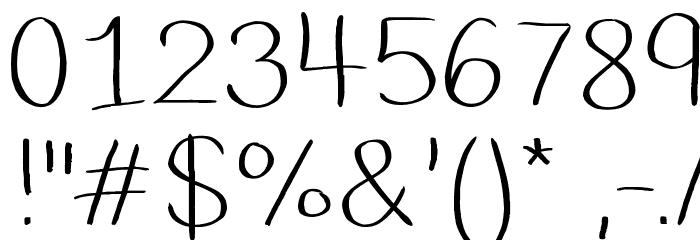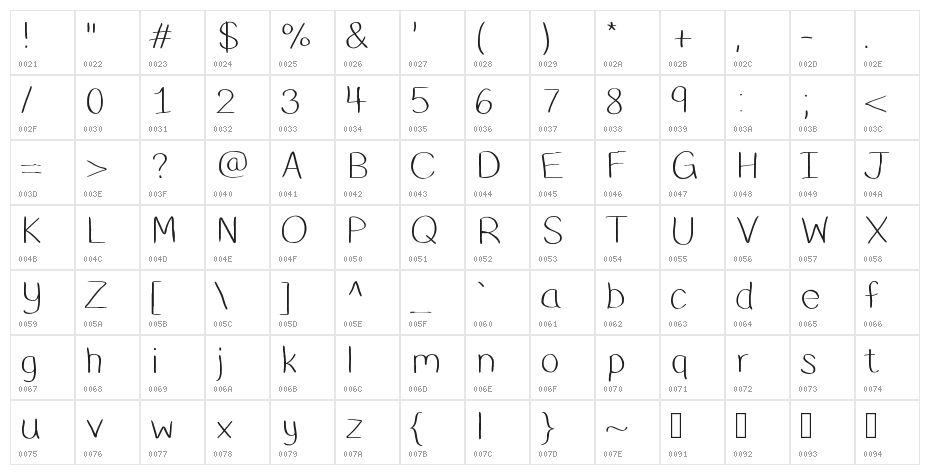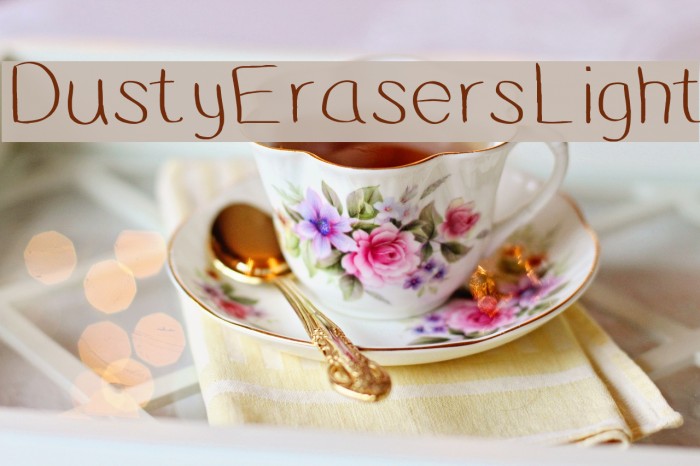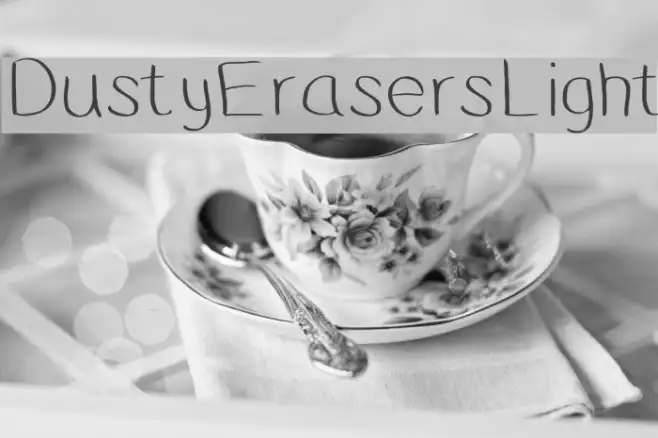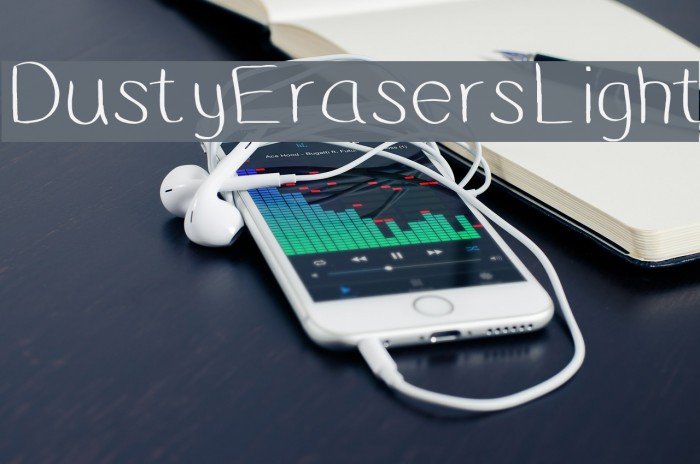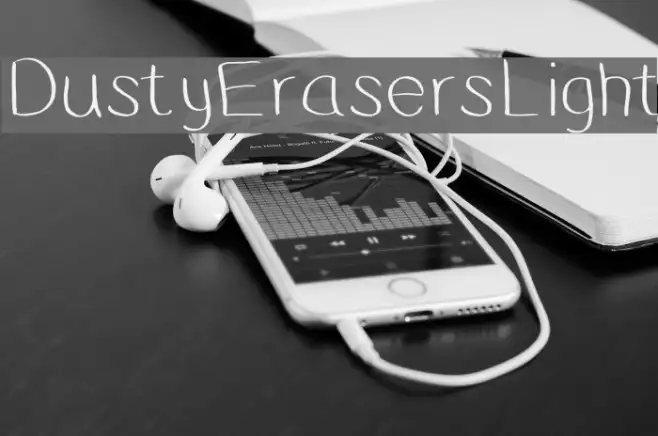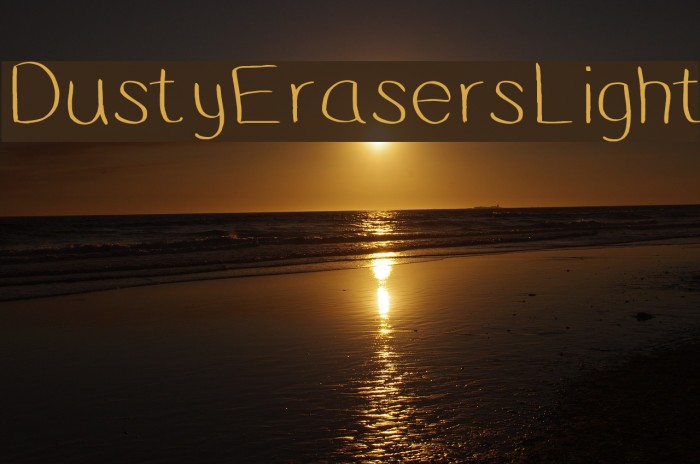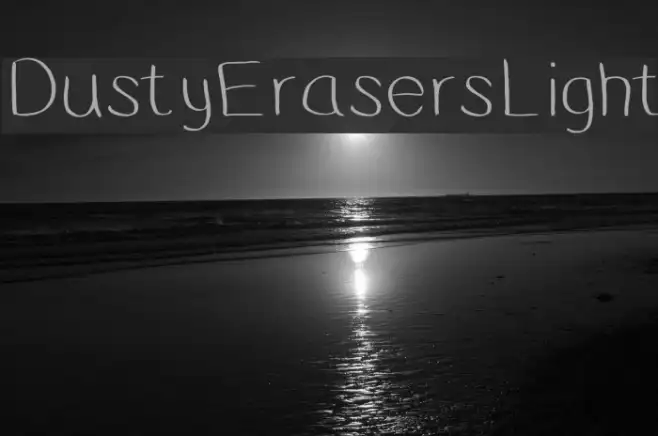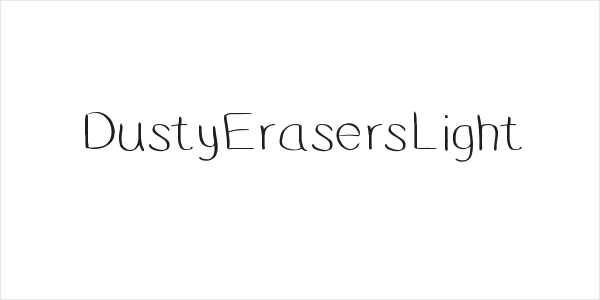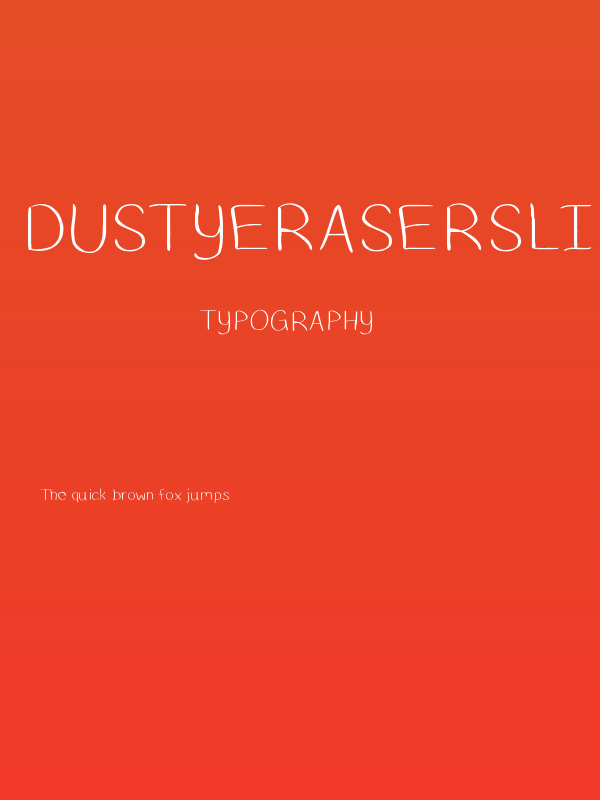
DustyErasersLight Font
DustyErasersLight Description
This font features a playful and casual handwritten style, characterized by its irregular strokes and slightly uneven baseline. The letters have a whimsical, organic feel, with a mix of rounded and angular forms that add to its charm. The uppercase and lowercase letters maintain a consistent style, while the numerals and special characters complement the overall look. The font's light weight and airy appearance make it suitable for projects that require a friendly and approachable aesthetic.
| Use Case | Greeting cards, Children's books, Casual branding |
| Proposed Projects | Ideal for greeting cards, children's books, casual branding, and social media graphics. |